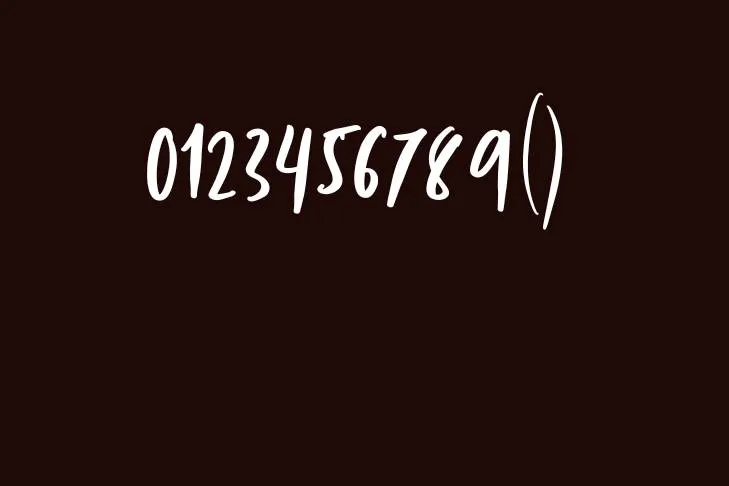
Introducing a typeface called Cloudy Night which brings up a strange and eerily appealing mood. The typeface belongs to the Display font family and has a gothic feel. Its robust and edgy characters draw attention. Its angular strokes and pointed serifs behold a distinctive classic aspect that makes it perfect for gloomy projects.
Moreover, it has a significant contrast between the thick and thin strokes of its letters, making it perfect for grabbing people’s attention. Its arched and pointed letters and unique appearance give designs a supernatural feel.
The font’s highly stylized and irregular shapes emphasize its gothic nature. Its unique aesthetics makes it an ideal option for any project which needs to evoke a sense of mystery or ambiguity. It can improve the overall feel and induce the necessary emotions when used in a design project. For a design that is distinct and visually striking, consider combining this font with the gorillaz font.
Styles and Weights of Cloudy Night Font
There are several weights of Cloudy Night Font, from Thin to Bold. the Bold weight is robust and influential while the Thin weight is lovely and delicate. Additionally, it also offers extensive styles including Regular, Semi-bold, and Extra-bold weights. This font is multifaceted and can be used for a variety of tasks due to the number of weights and styles it is offering.
Uppercase and Lowercase Characters
This atypical font offers a variety of features and glyphs. Its glyph set includes both upper and lowercase letters which possess a gothic style and is applicable for vintage or retro-type projects. The edges of its letters are pointed and arched, which is rarely available in any other font.
Pairing Options for Cloudy Night Font
When it comes to pairing options, this impactful font is versatile and can be combined with other Gothic or Sans-serif typefaces. It can be paired with Sans-serif fonts such as Helvetica, or Open-Sans that lend a trendy and contemporary feel.
Font Information
Name | Cloudy Night Font |
Designer | Masanis Studio |
Style | Display |
Cloudy Night Font Related Questions!
What kind of font is the Cloudy Night font?
The typeface belongs to the Display font family and has a gothic feel and its robust and edgy characters draw attention. Its angular strokes and pointed serifs behold a distinctive classic aspect that makes it perfect for gloomy and dramatic design projects.
Is there any font closest to the Cloudy Night font?
Silver Rainbow font is closest to this font and it has similar features as compared to this typeface.